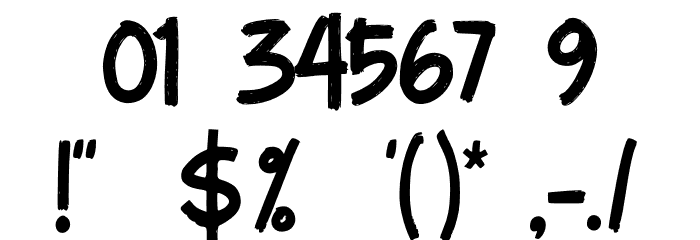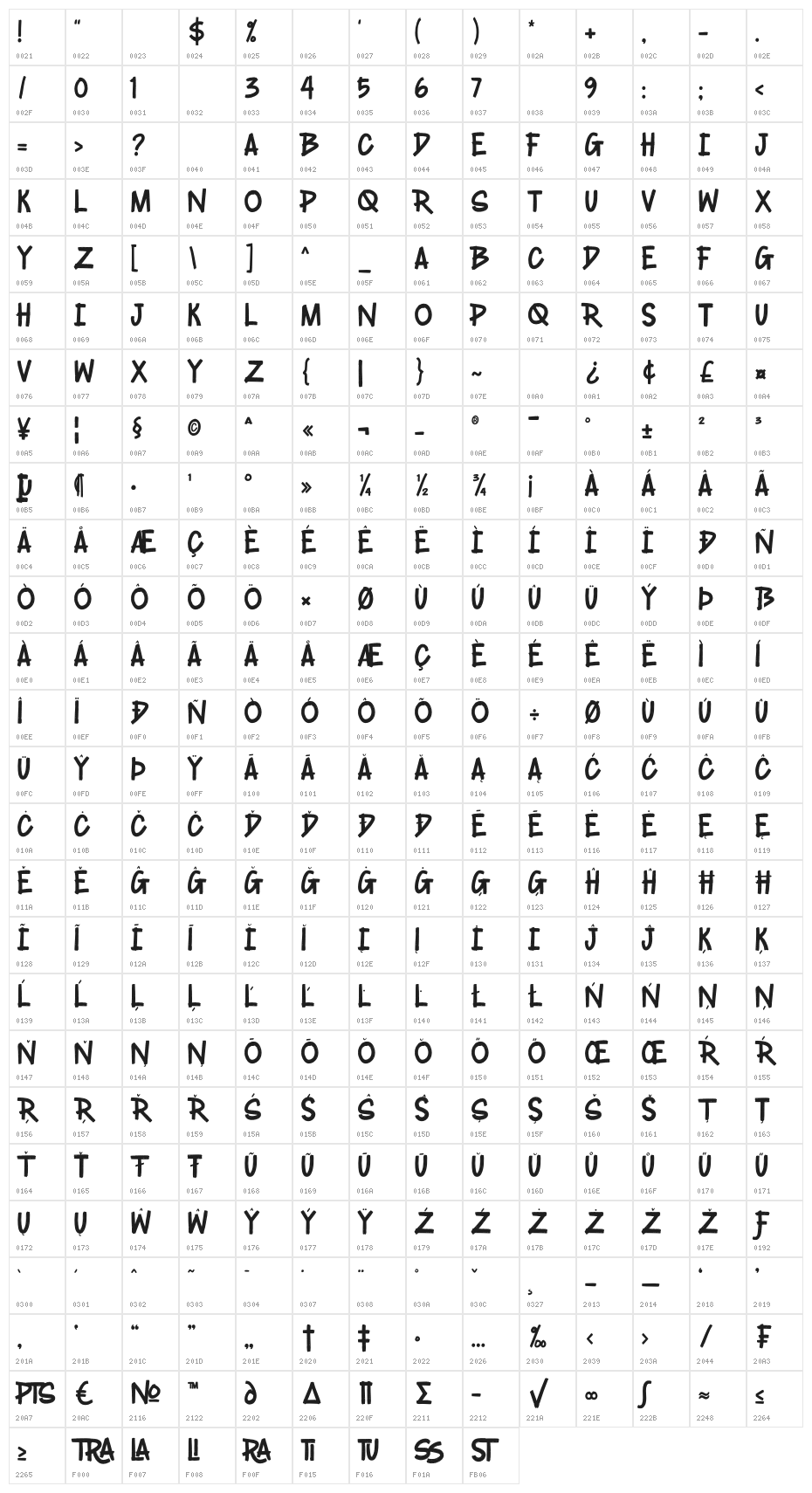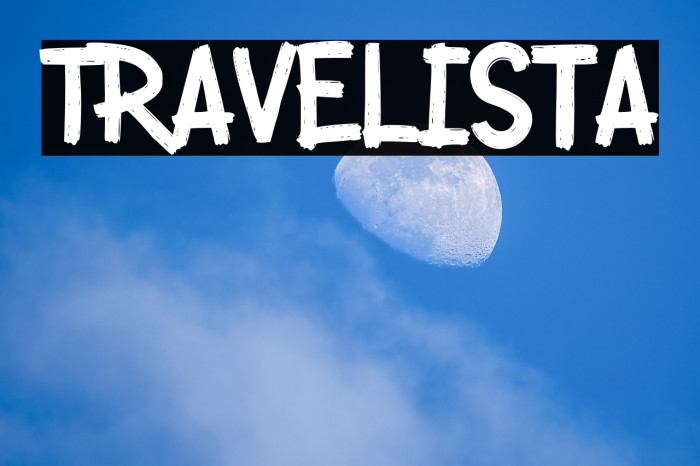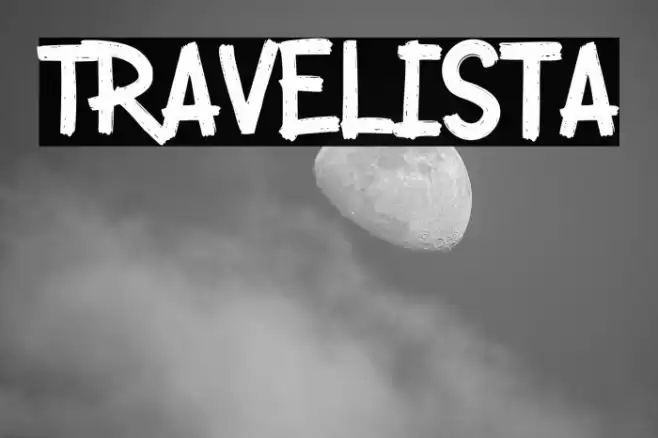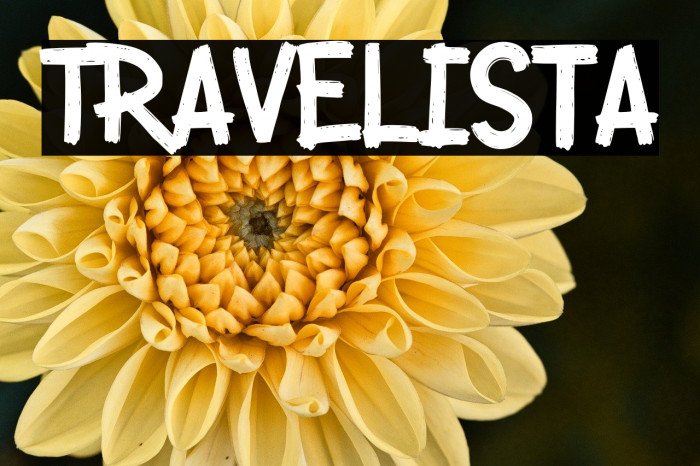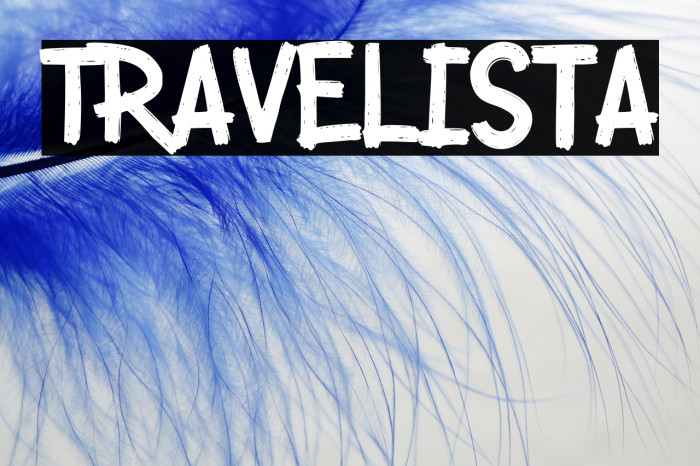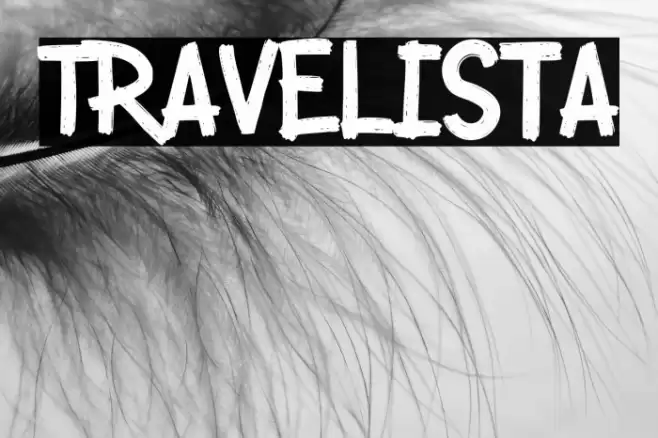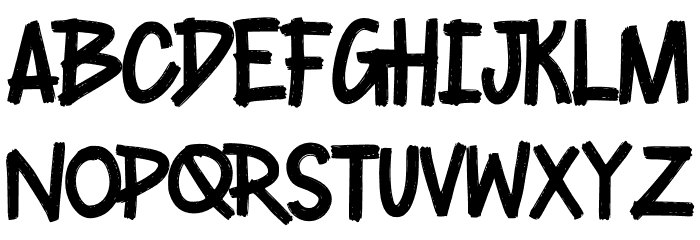
Travelista Font
Travelista Description
This font features a bold, handwritten style with a playful and energetic appearance. The characters are slightly irregular, giving them a casual and informal look. The strokes are thick and consistent, providing a strong visual impact. The uppercase and lowercase letters maintain a cohesive style, with rounded edges and a slightly slanted orientation. The numerals and special characters are designed to match the overall aesthetic, ensuring a harmonious appearance across all text. This font is ideal for projects that require a personal touch or a sense of spontaneity.
| Overall Style | Casual and playful |
| Use Case | Headlines, Posters, Social media graphics |
| Proposed Projects | Perfect for greeting cards, posters, social media graphics, and branding projects that require a personal and informal touch. |